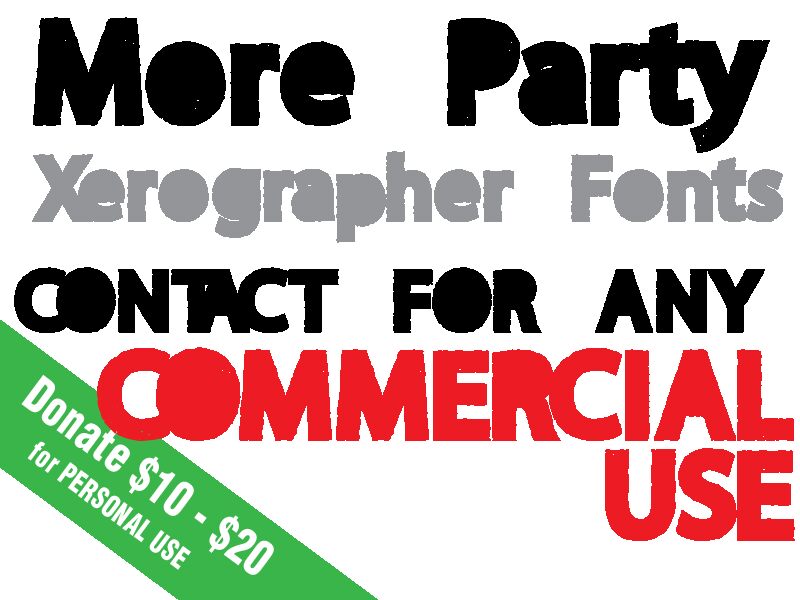
More Party from Xerographer Fonts is a free comic display font with bulky, uneven lettering and a rowdy hand-cut silhouette. Its blunt curves, squeezed joins, and erratic heights make the line look crowded on purpose. Fine chips and scratches roughen the solid strokes.
The DIY comic-book character suits gig posters and party flyers, where the letters can feel as much like artwork as type. It also fits skate merchandise and irreverent food packaging, especially when a loud, scrappy voice is wanted. In publishing, it can turn a magazine cover line into part of the illustration rather than a neutral caption.